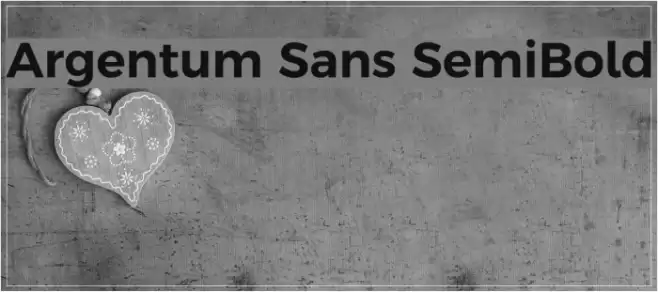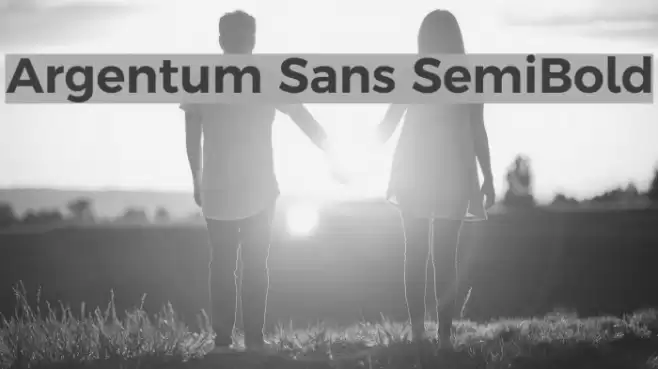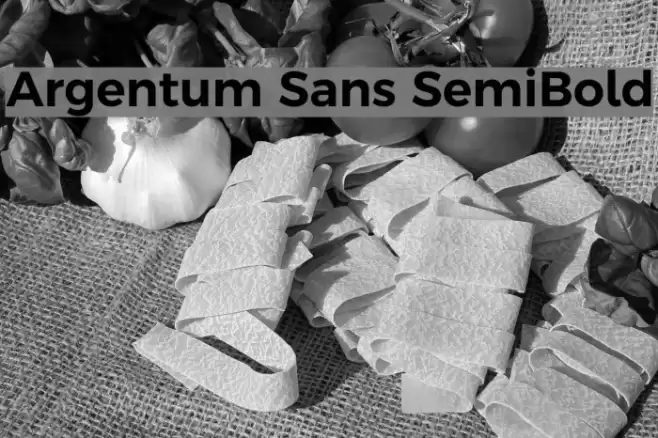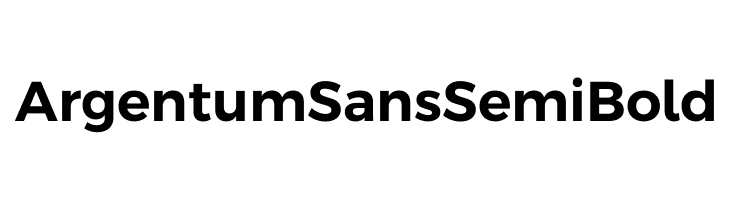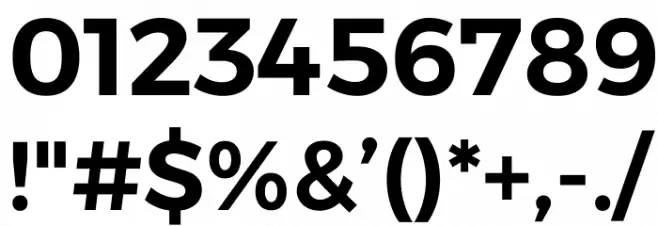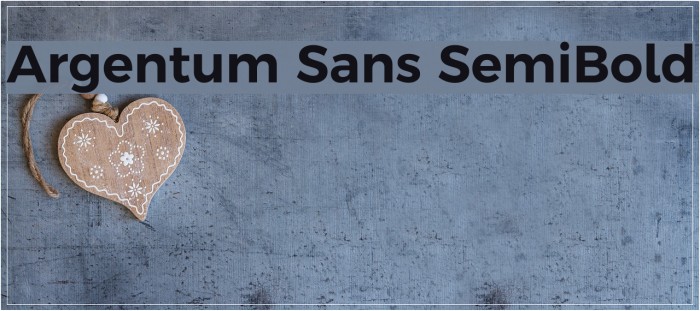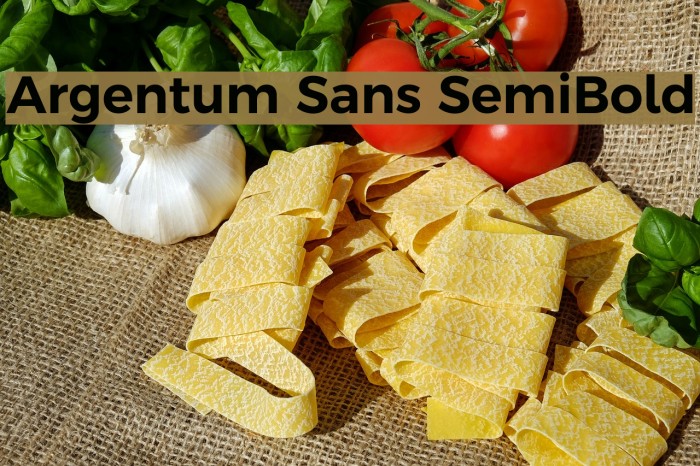
Argentum Sans SemiBold Font
Argentum Sans SemiBold Description
This font features a clean and modern sans-serif style with a semi-bold weight, offering a balanced and professional appearance. The characters are well-defined with smooth curves and straight lines, providing excellent readability. The uppercase letters are bold and commanding, while the lowercase letters maintain a consistent and harmonious flow. The numerals are clear and distinct, making them suitable for various applications. Special characters are included, enhancing the font's versatility. Overall, this font is ideal for projects that require a contemporary and polished look.
A modern sans-serif font with a semi-bold weight, offering clarity and professionalism from Uncategorized fonts.